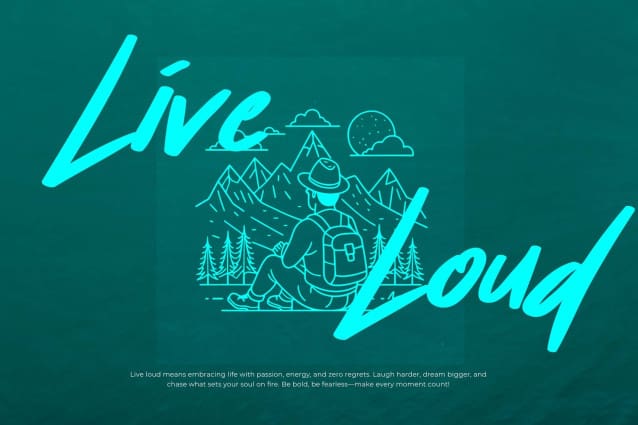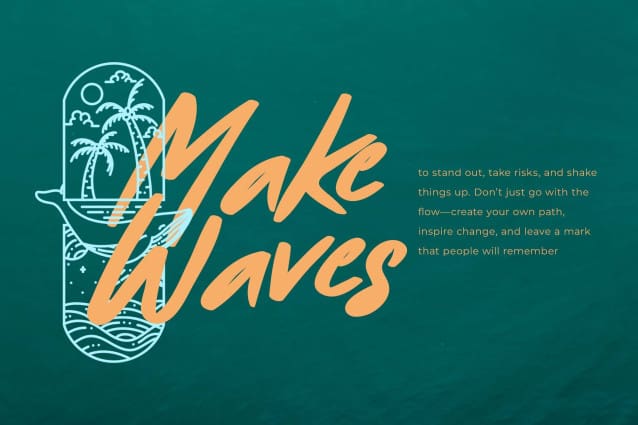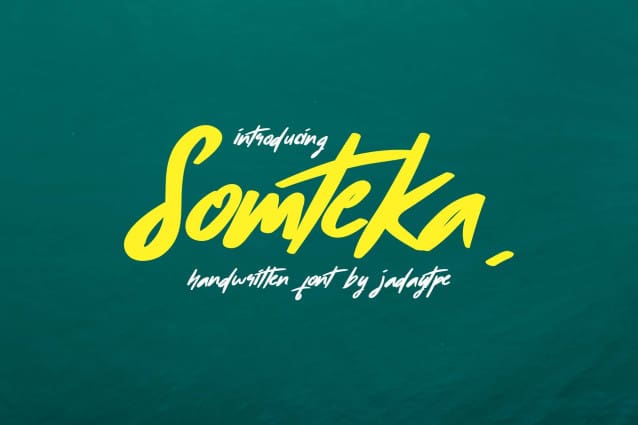
Somteka Script Font
Somteka Script Font is a handwritten font with a brush that has an energetic and moving impression. It is suitable for your design needs, crafts, t-shirt designs, social media, typography, posters, advertisements, and so on